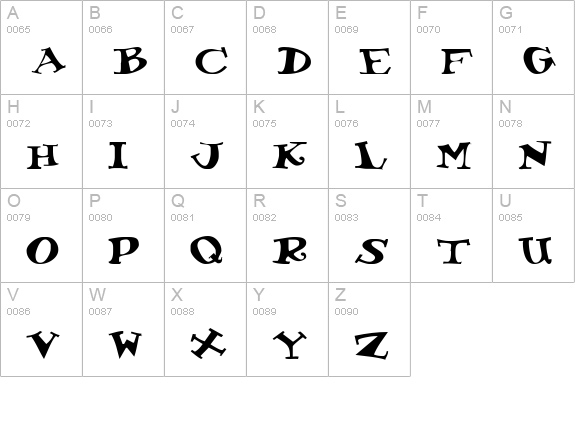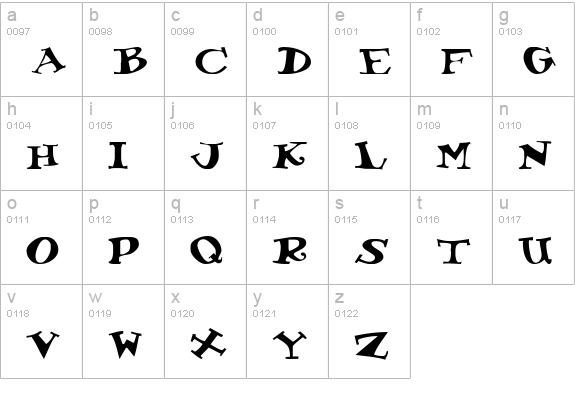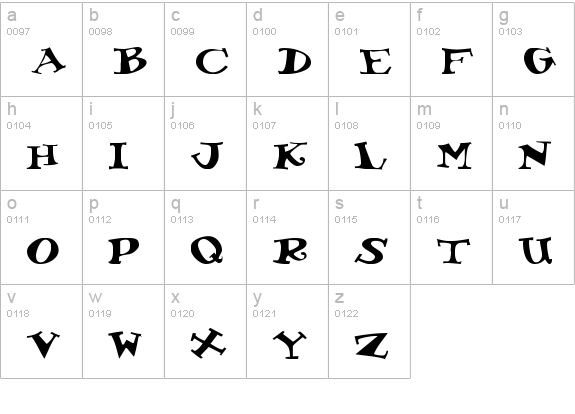
KoolKapsDisplayHvy Font Details
KoolKapsDisplayHvy font is a bold and eye-catching display typeface that is perfect for making a statement in your designs. This font exudes a sense of modernity and sophistication with its unique and stylized letterforms. The heavy weight of the characters gives a strong and commanding presence, making it ideal for headlines, titles, and other attention-grabbing text. Best of all, KoolKapsDisplayHvy font is available for free download at FontsMarket.com. You can easily add this striking font to your collection without spending a dime. Whether you're working on a poster, logo, or any other design project, KoolKapsDisplayHvy font will make sure your message stands out and leaves a lasting impression. Download it today and elevate your designs with this bold and impactful typeface.